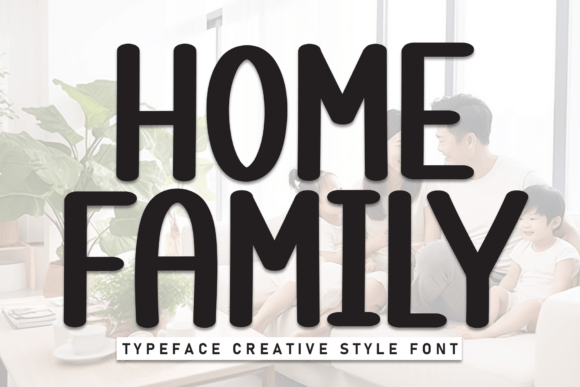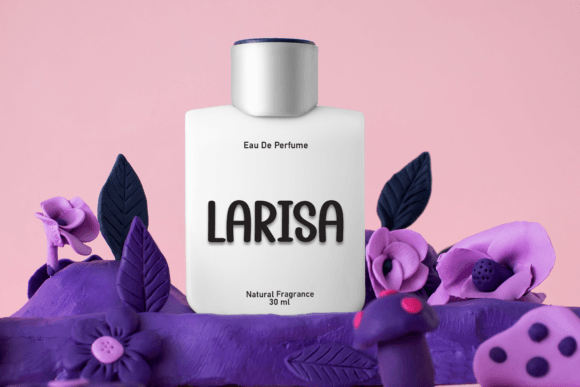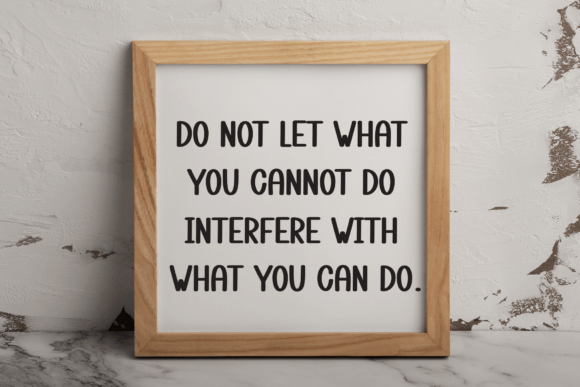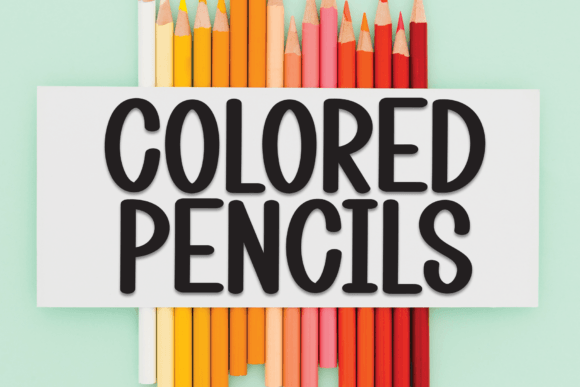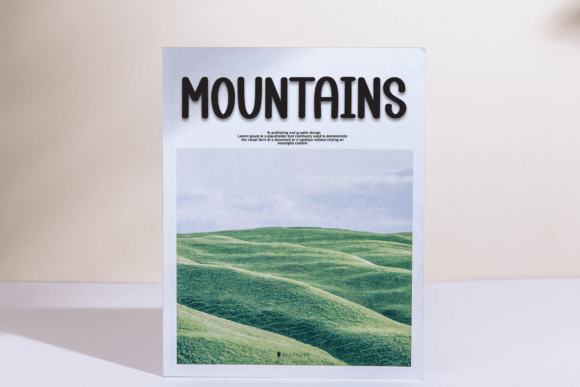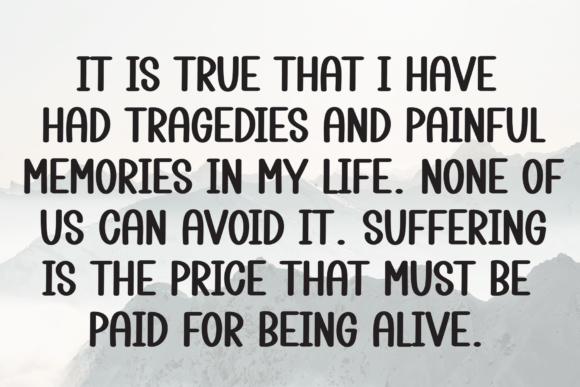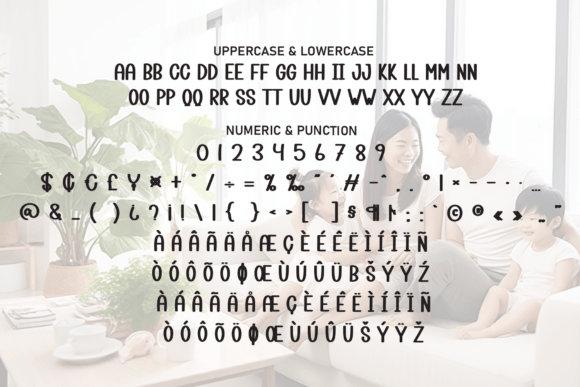
Creating a Warm Welcome with the Home Family Font
Remember that moment when you were brainstorming ideas for your new home decor project, and you wanted to evoke the feeling of walking into a cozy living room on a chilly winter evening? You envisioned soft lighting, plush cushions, and a warm, inviting atmosphere that makes you feel like you’re home. That’s exactly the kind of warmth and personality you can bring to your designs with the right font.
Enter the Home Family Font, a bold, handwritten font that looks like it was written by hand with thick strokes. Its warm, personal feel is perfect for creating cozy and welcoming designs that make your audience feel at ease. Whether you’re designing a logo, a brochure, or a social media campaign, this font is sure to add a touch of warmth and personality to your work.
As a designer, you know how valuable it is to have the right tools in your arsenal to convey the emotions and feelings you want to evoke in your audience. The Home Family Font is a valuable addition to any designer’s toolkit, offering a unique and expressive way to create designs that feel truly personal and inviting.
Home Family Font Key Features
- Font Family: Home Family Font is a modern sans-serif font family designed for use in digital and print media.
- Font Size: Home Family Font comes in 6 font weights, ranging from Light to Extra Bold, allowing for versatility in typography.
- Resolution: Optimized for high-resolution displays, with clear and crisp text at resolutions up to 300 DPI.
- Unique Characteristics: Home Family Font features a clean, friendly design with subtle rounded edges, making it suitable for corporate, editorial, and digital applications.
- Language Support: Supports a wide range of languages, including Latin, Cyrillic, and Greek alphabets, making it a great choice for global brands and publications.
Home Family Font Review
As a designer, I was excited to try out the “Home Family Font” and see if it lived up to its name. Overall, I think it’s a solid choice for family-friendly projects, but it has its limitations.
- Wide Character Set: The Home Family Font has a comprehensive character set, making it suitable for projects that require a wide range of languages and special characters.
- Legibility: The font is highly legible, even at smaller font sizes, which is essential for body text and headings.
- Cross-Platform Compatibility: I found that the font works well across various operating systems and devices.
- Lack of Distinctiveness: While the font is legible, it doesn’t have a unique personality or flair that sets it apart from other sans-serif fonts.
- Limited Expressiveness: The font may not be the best choice for projects that require a high level of expressiveness or emotional resonance.
Overall, the Home Family Font is a reliable choice for family-friendly projects, but it may not be the best fit for projects that require a bold, eye-catching font. I’d recommend it for body text and headings, but for titles and headings, you may want to consider a more distinctive font.
Use the ‘Home Family Font’ in conjunction with other design elements to create a cohesive and welcoming atmosphere. Experiment with different font sizes and styles to add visual interest. Consider using the font in headings and subheadings to create a clear hierarchy of information.
The ‘Home Family Font’ is ideal for use in family-related projects, such as creating invitations for family gatherings, designing a family photo album, or creating a family newsletter. It can also be used in home decor projects, such as creating a custom wall art or designing a family tree.